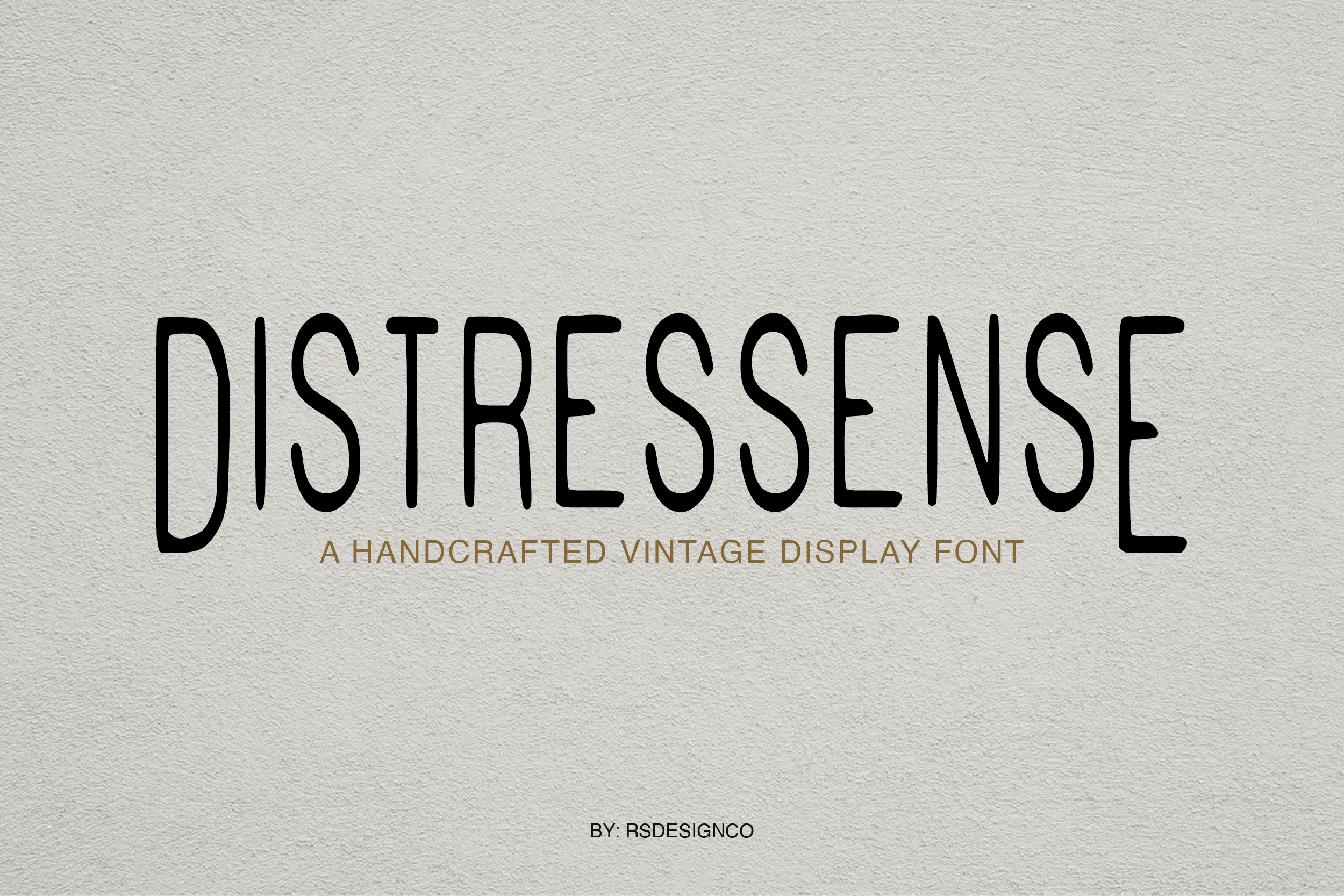
Distressense | Display Font
Distressense is a handcrafted vintage display font packed with rustic charm and character. Each letter features artfully distressed edges and weathered textures, as if pulled from an old letterpress poster or time-worn sign. This font embraces the beauty of imperfection, giving your text an instant retro look and tactile feel.
- Old-fashioned logos, pub signage, or cafe menus that demand a distressed vintage look
- Vintage-style packaging and labels
- Event posters and flyers for retro markets, concerts, or festivals
- T-shirt designs, home decor art, and DIY projects that crave a rustic, hand-crafted aesthetic
- Full uppercase alphabet (A-Z) with intentionally rough, time-worn details
Give your designs a perfectly imperfect touch with Distressense!